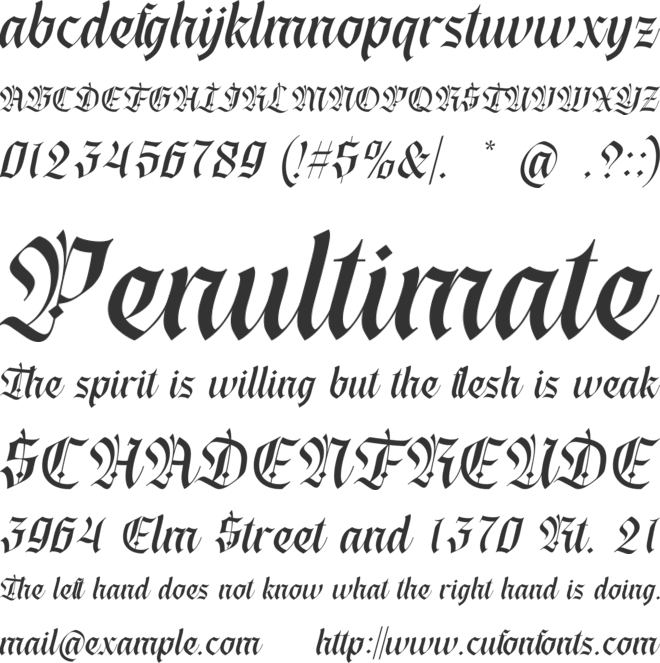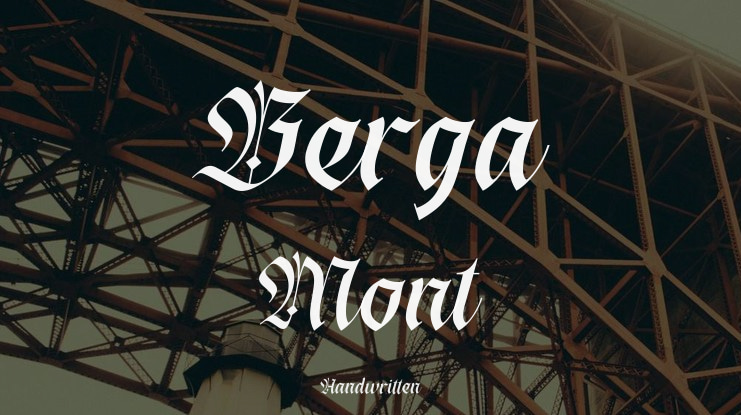
Berga Mont: A Masterpiece of Gothic Blackletter
Unleash a new era of dark elegance with Berga Mont, a breathtaking blackletter script typeface that blends raw gothic energy with sophisticated, intricate ornamentation. This is not just a font; it's a complete design arsenal crafted for those who demand power and mystery in their typography.
Inspired by the bold spirit of modern gothic streetwear and the timeless beauty of "guns and roses" motifs, Berga Mont is a feature-rich typeface designed by Alit Design Studio. Its sharp, angular letterforms are adorned with elaborate, flowing swashes that weave through your text, creating a dynamic and captivating visual rhythm.
Whether you're branding a metal band, designing a fantasy book cover, or creating statement apparel, Berga Mont commands attention.